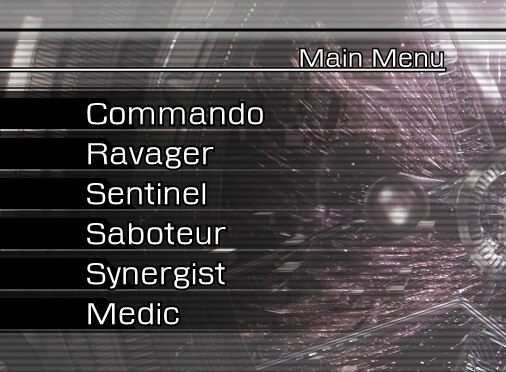
Fabula Valhalla Bold Italic
Fabula Valhalla Bold Italic is a modern, sans serif font created by Adam Alexander Croke. Its medium thickness makes it an ideal typeface for headlines, logos and titles. Its wide width gives it a strong presence which makes it suitable for posters and banners. It adds a subtle flair to websites and digital ads without overwhelming the reader with its bold italic style. Fabula Valhalla Bold Italic can be used to create eye-catching designs that are sure to captivate any audience!
This font family is inspired by the default font seen within menus in Final Fantasy XIII (a trademark of Square Enix) and its sequels a font which itself is based on Eurostile.